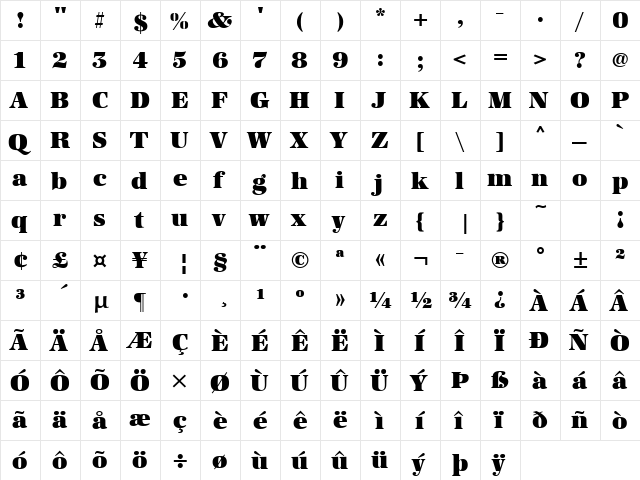
Becker Antiqua Alt Regular
Design Context for Becker Antiqua Alt Typeface
Becker Antiqua Alt is a composed and adaptable typeface that performs quietly and consistently across a wide range of design contexts.